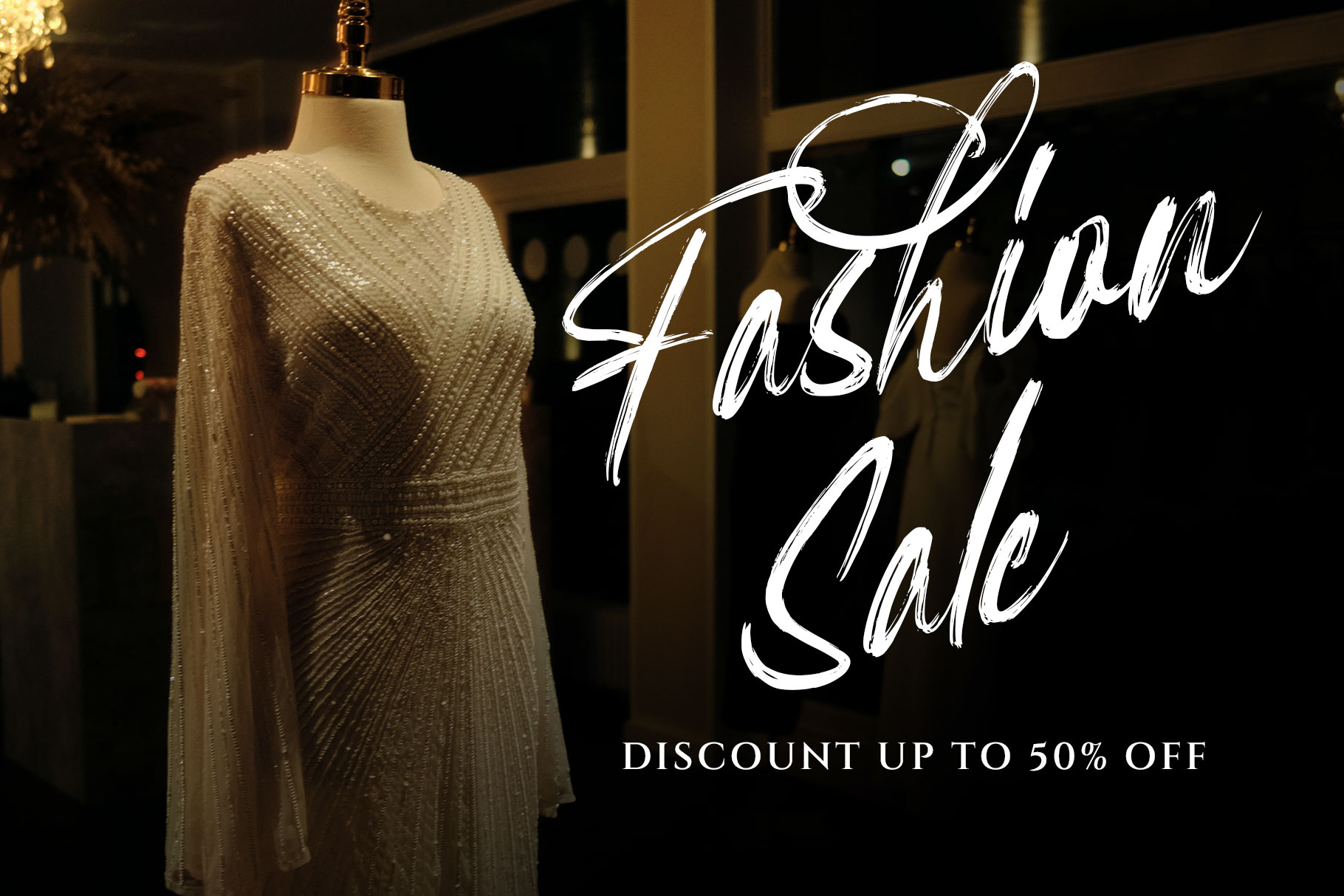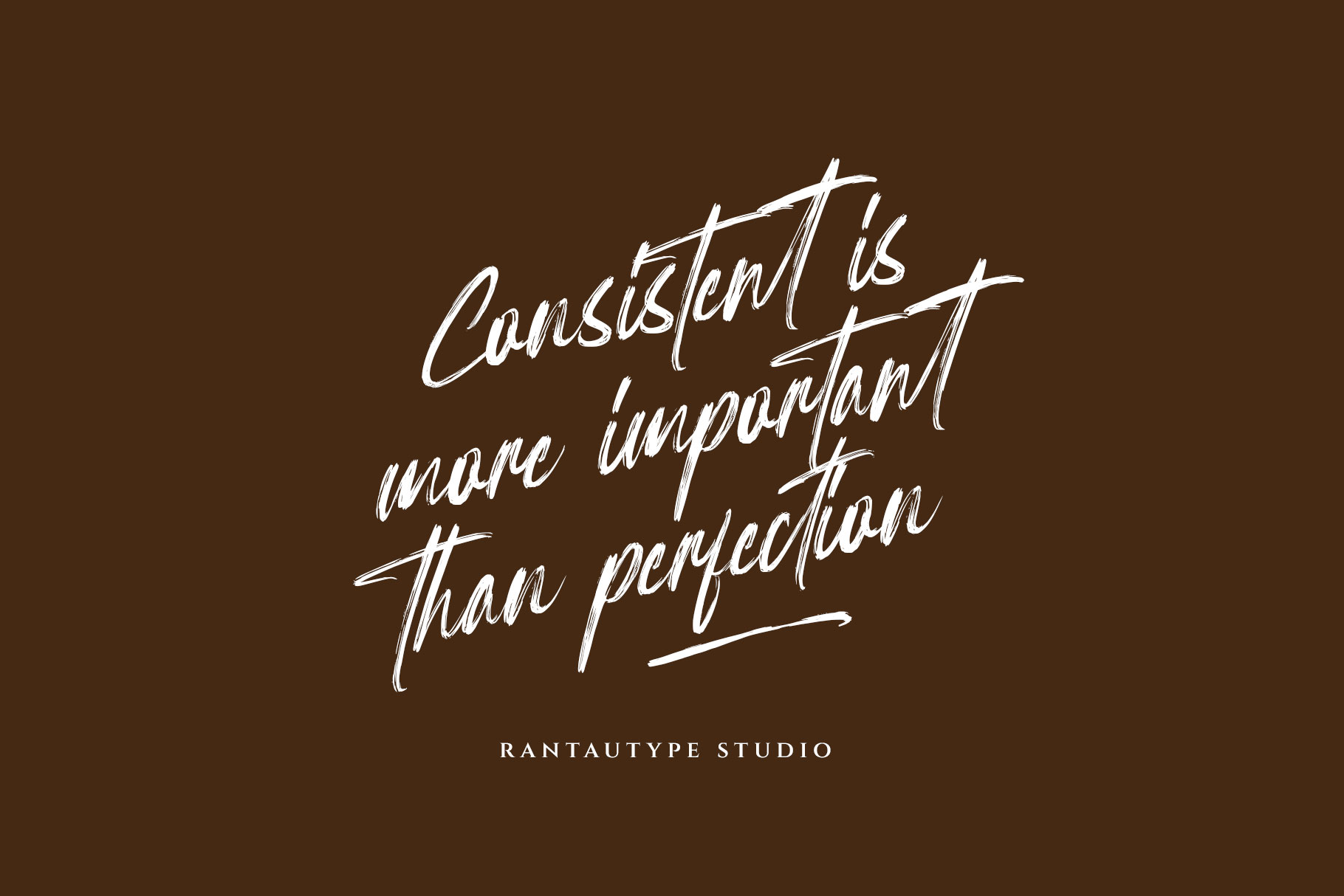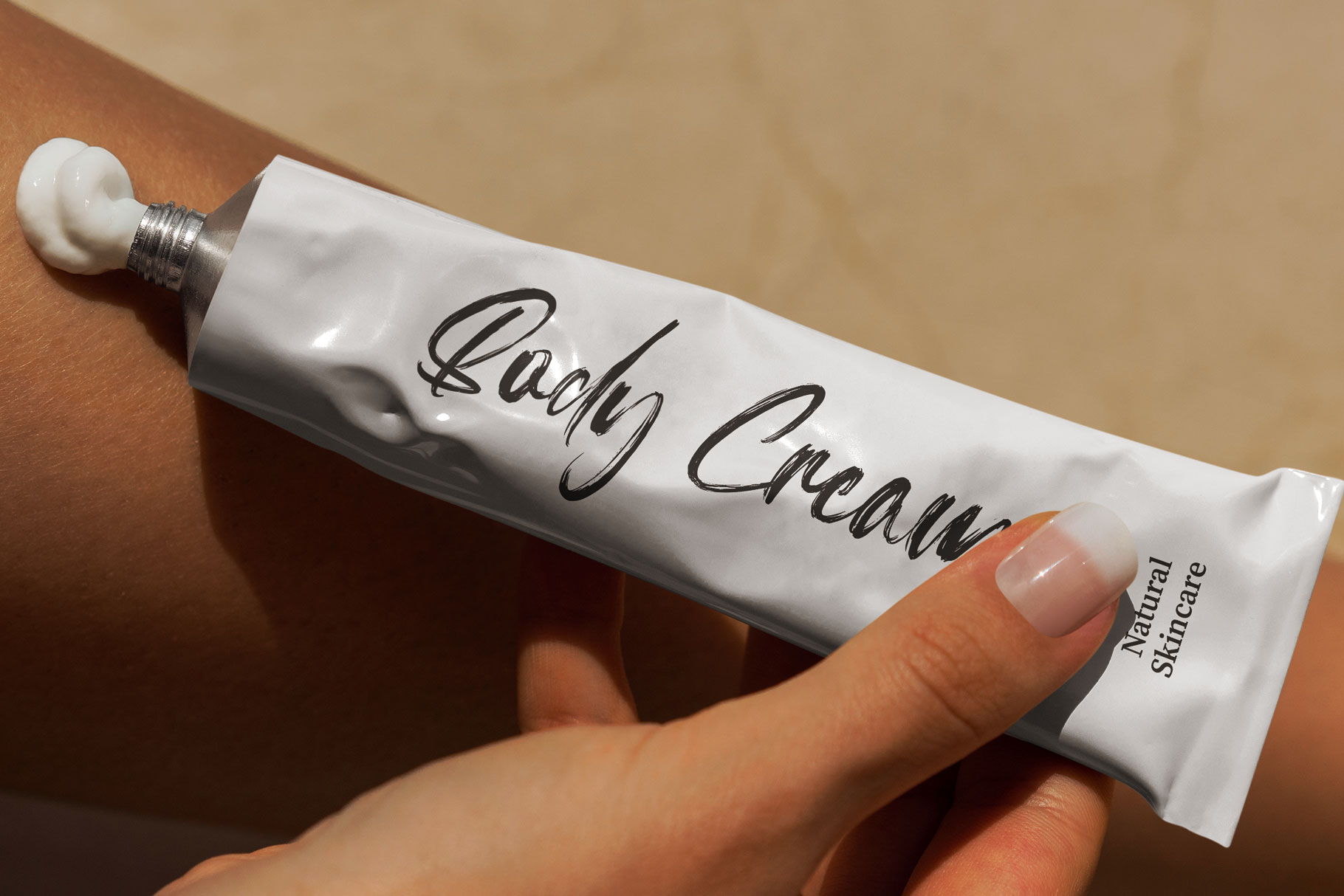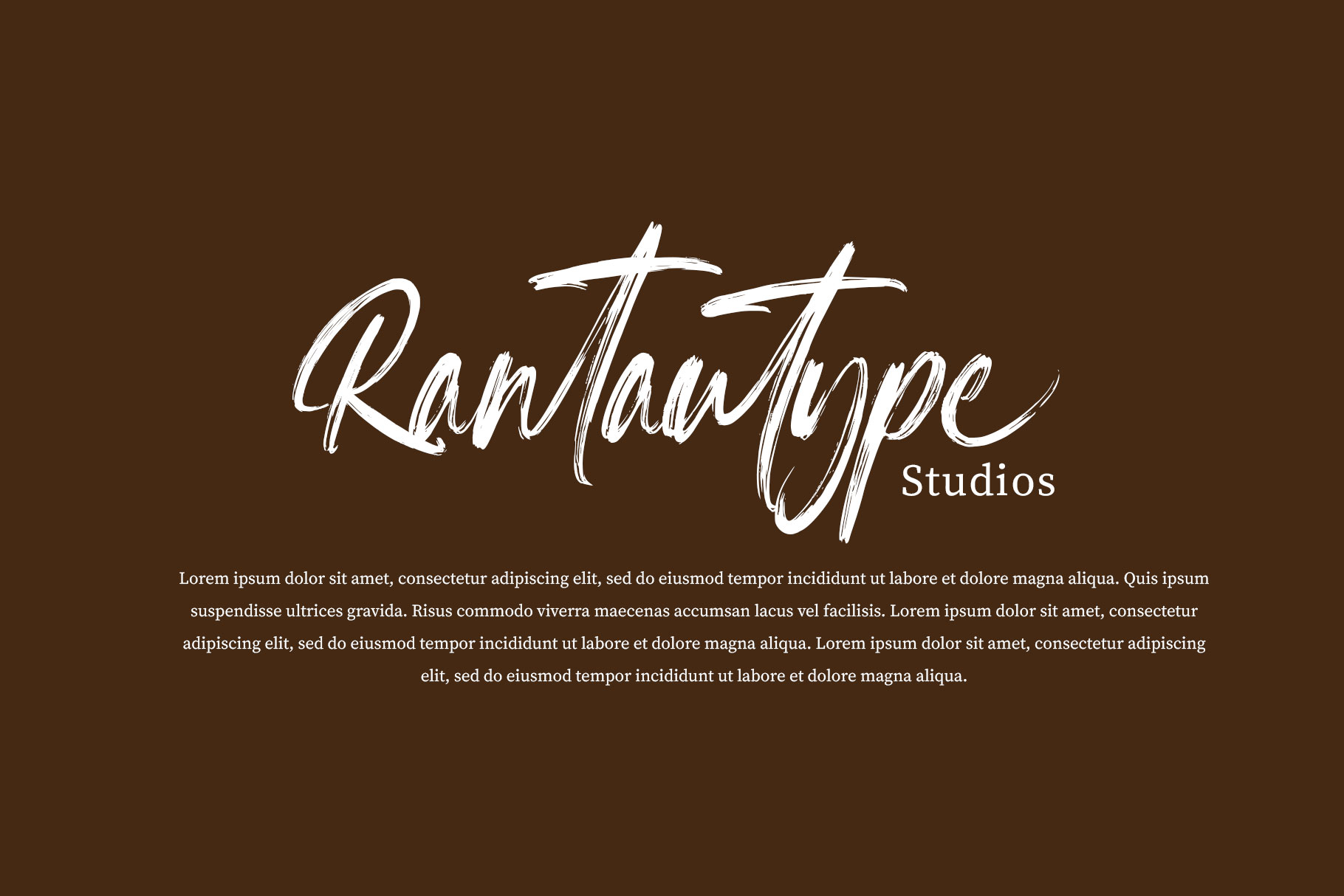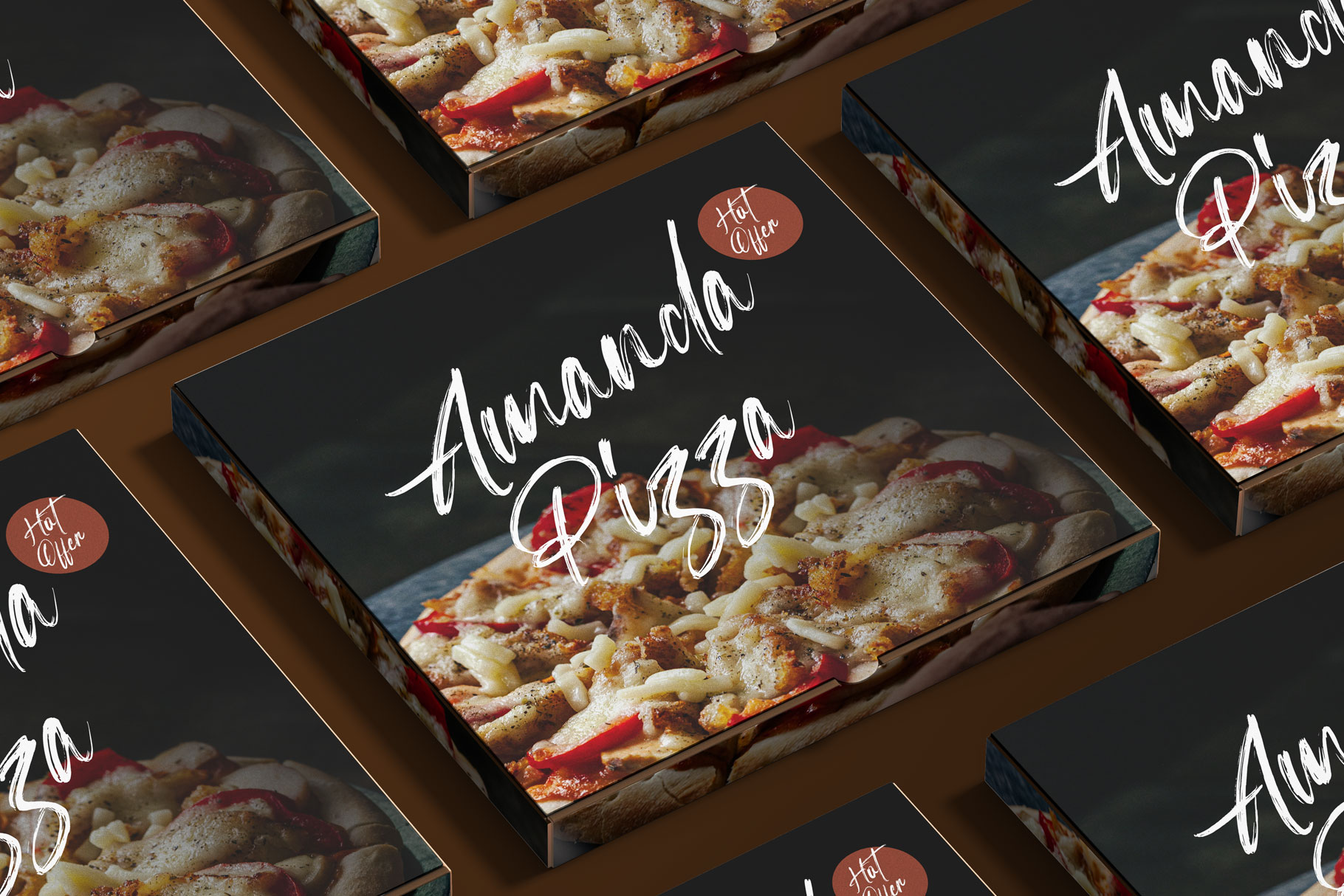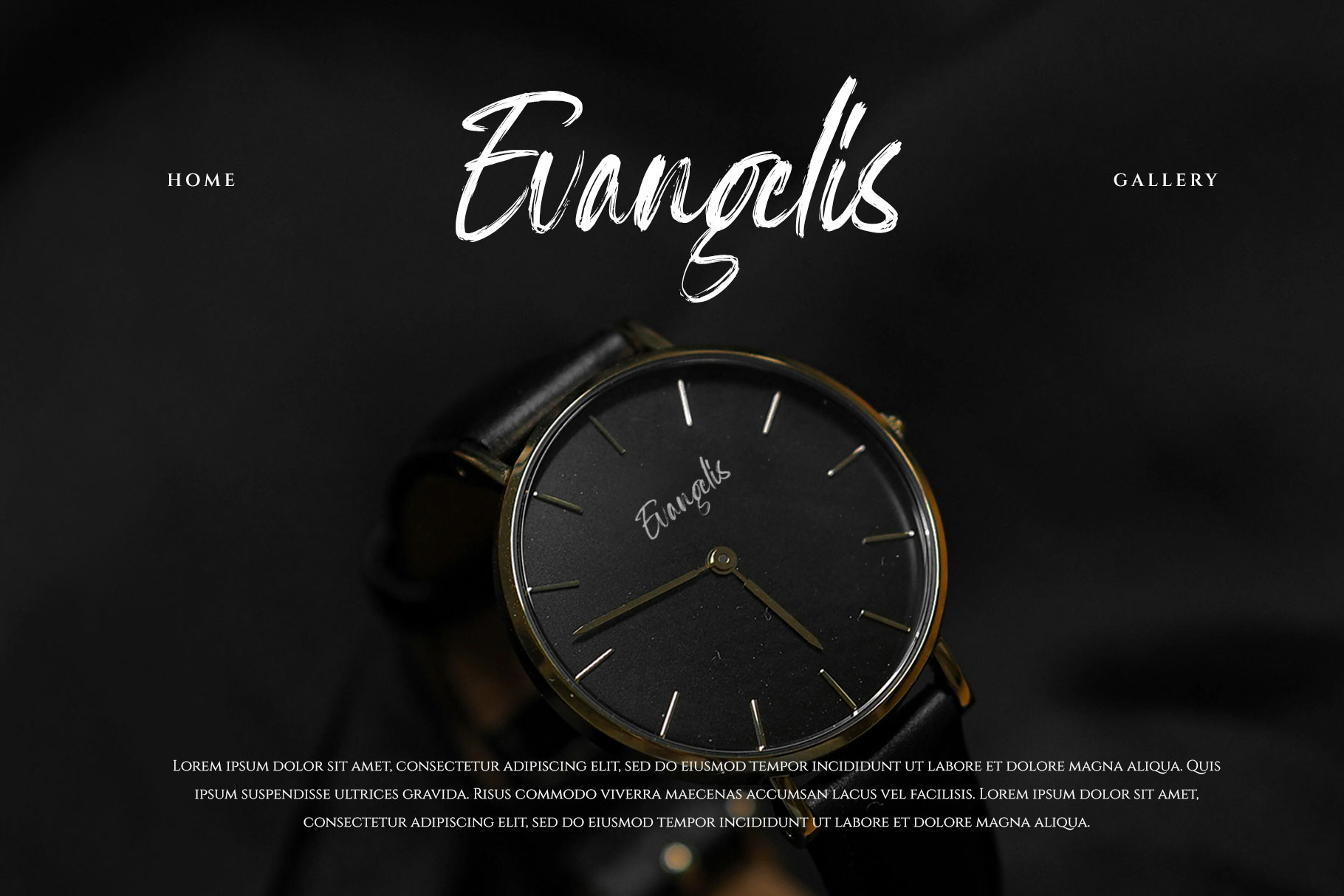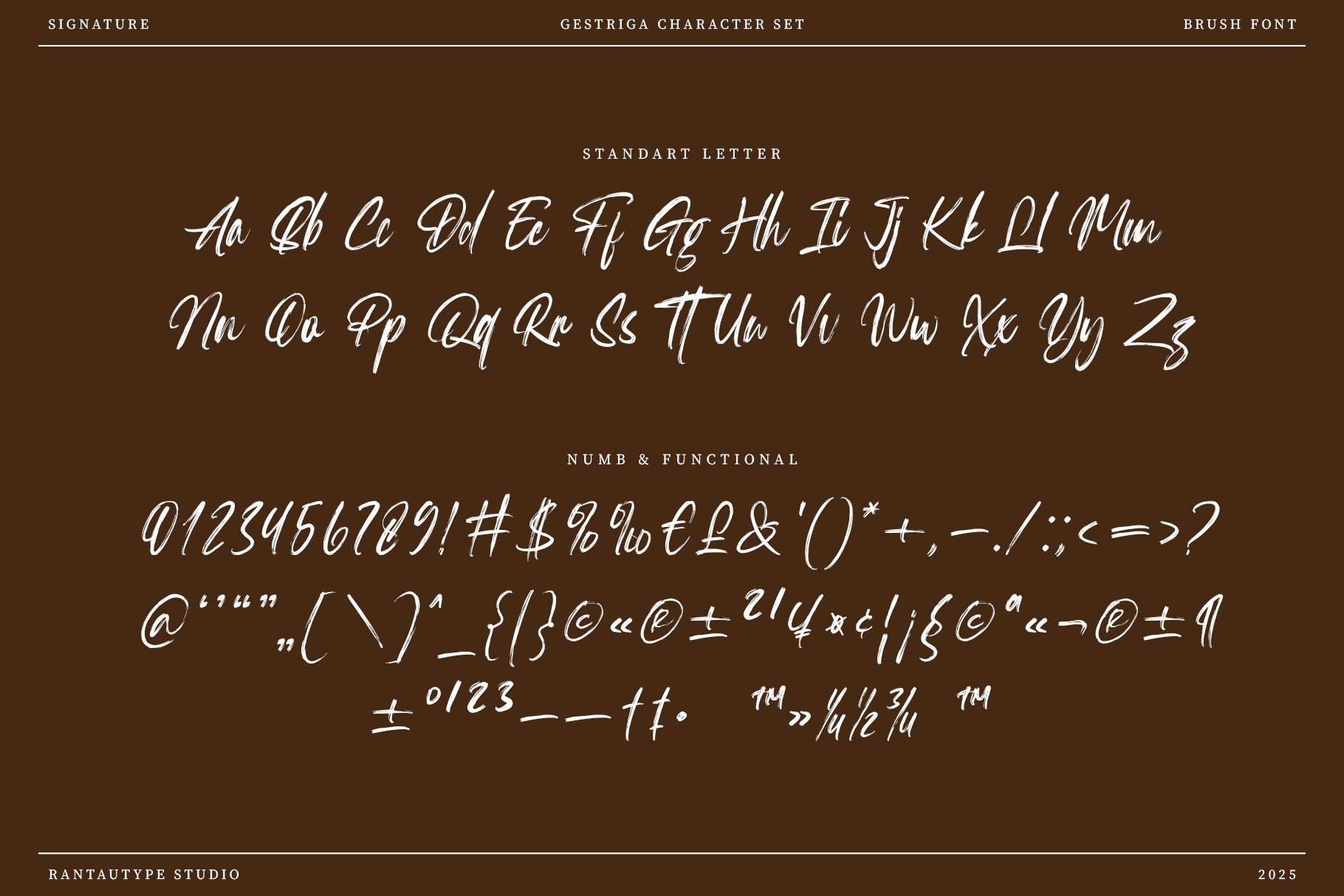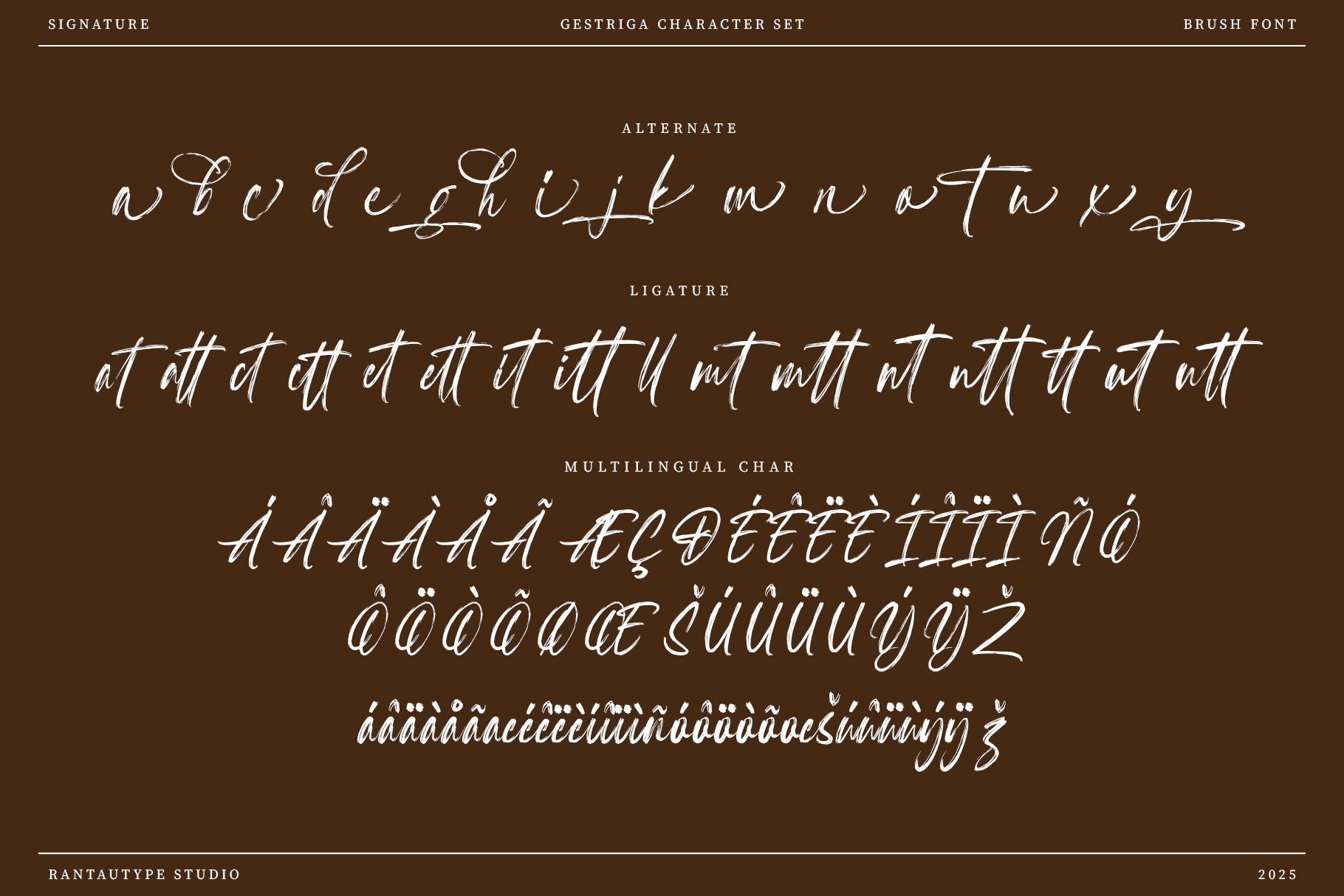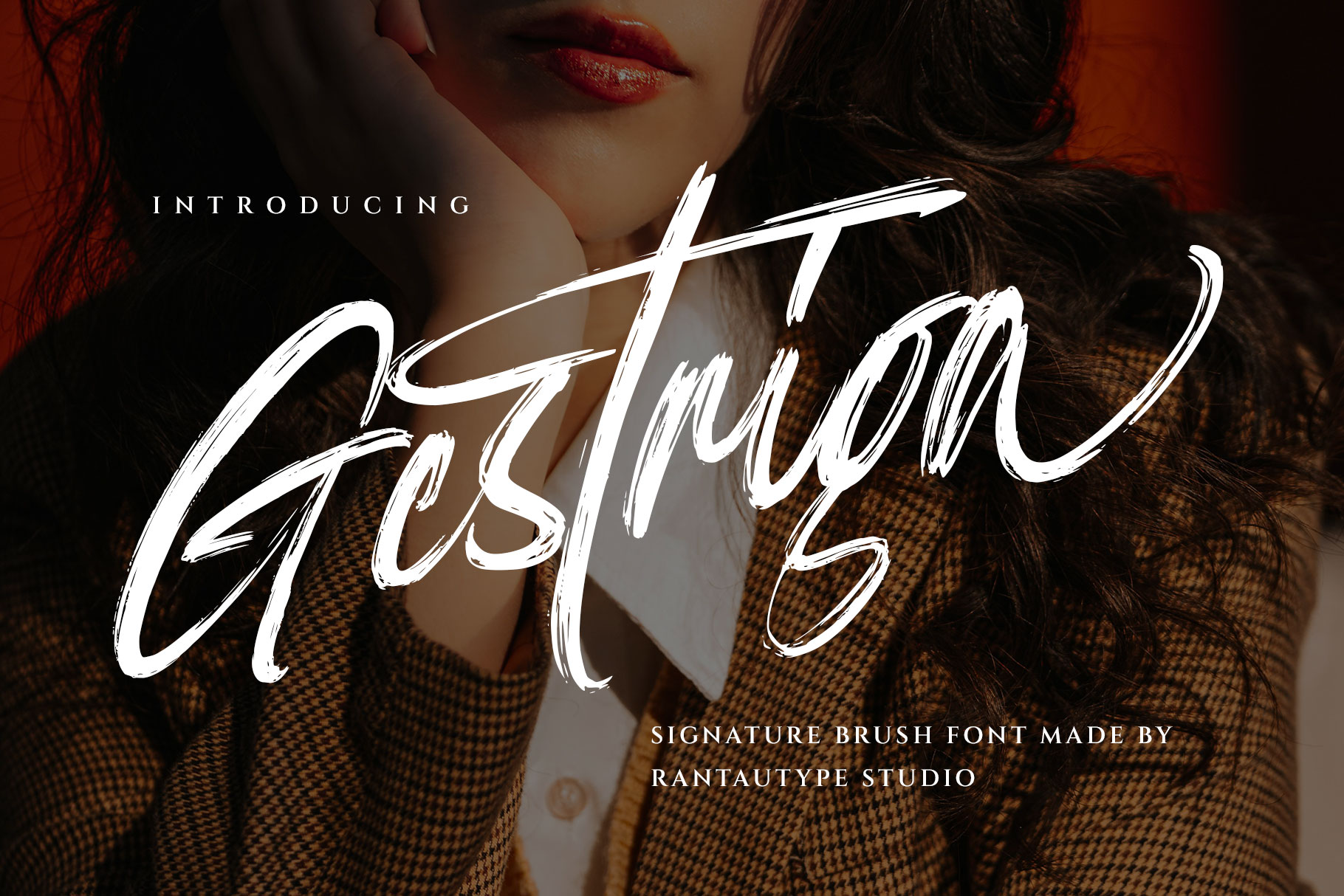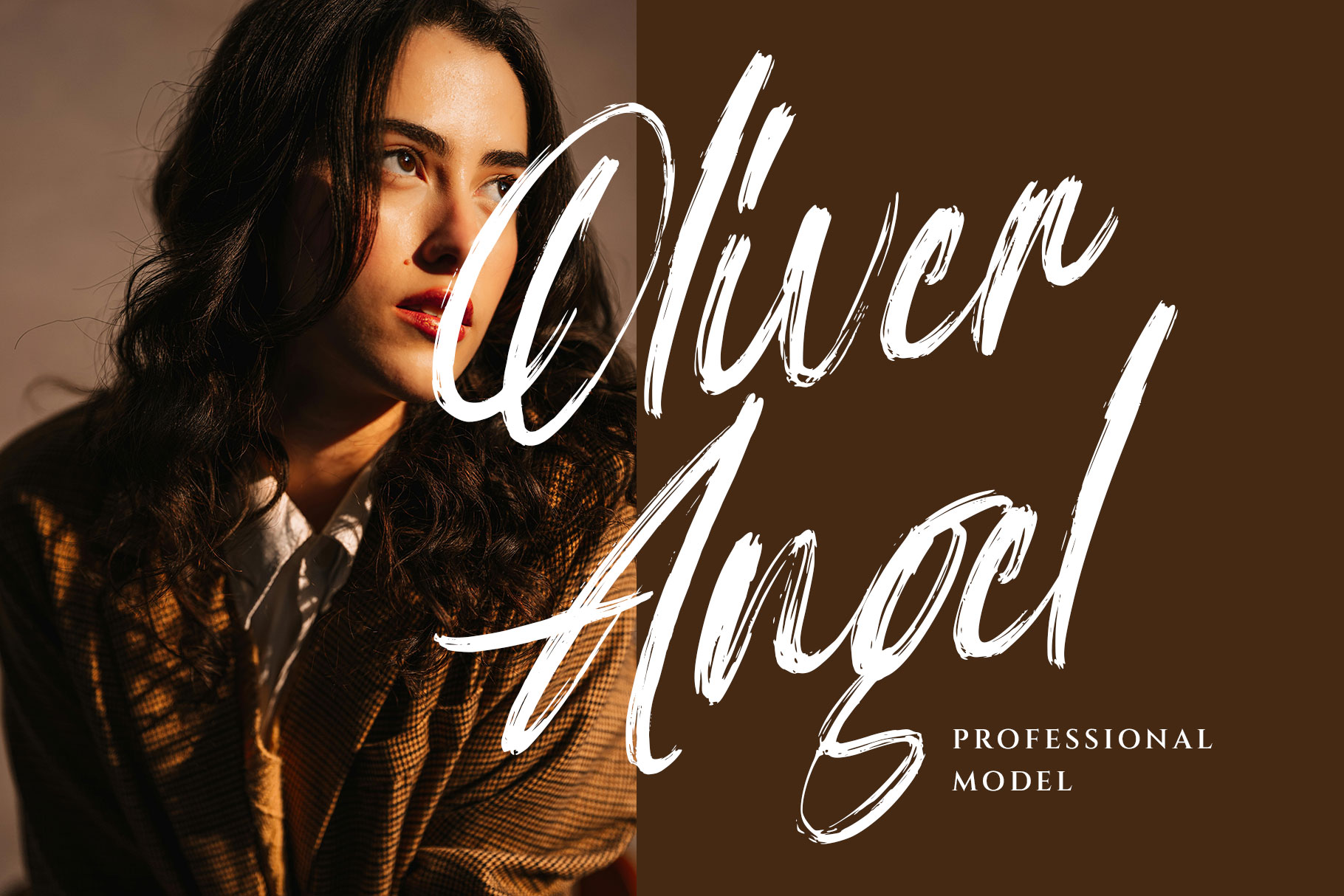
Gestriga Signature Brush Font
Gestriga is signature brush font embodies the perfect harmony between sophistication and artistic freedom. Designed with fluid brush strokes and graceful curves, this font captures the essence of handwritten elegance.
Gestriga is a perfectly choice for any creative endeavor, creating, modern, lifestyle design such as logotype, title, cover, branding, invitations, wedding designs, display and magazine, social media posts, advertisements, printed quotes, product packaging, corporate brand, product designs, labels, photography, watermarks, special events and any other project with modern touch.